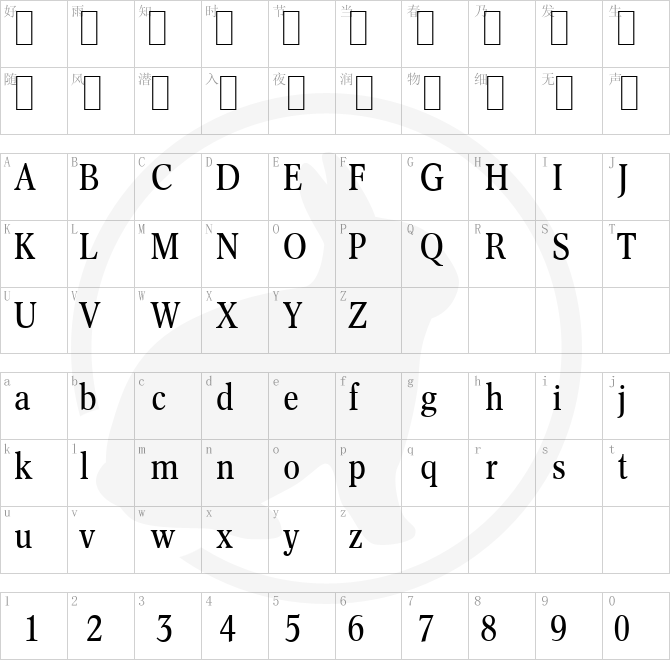
C791-Roman-Regular.ttf is a very beautiful artistic font, C791-Roman-Regular.ttf is widely used in the design and printing of various books and pictures,C791-Roman-Regular.ttf has a strong visual impact,C791-Roman-Regular.ttf is a commonly used font in newspapers, magazines and books, and is used in posters, e-commerce Poster design, store design, logo design, font design and other fields.C791-Roman-Regular.